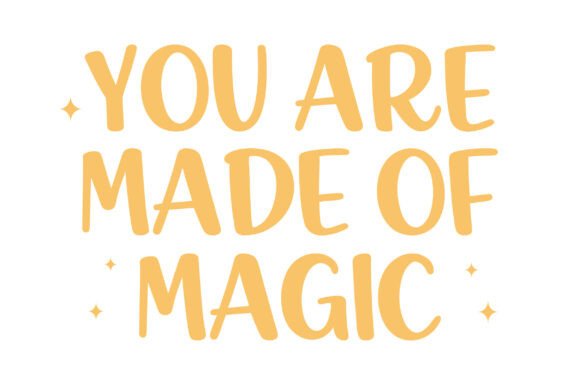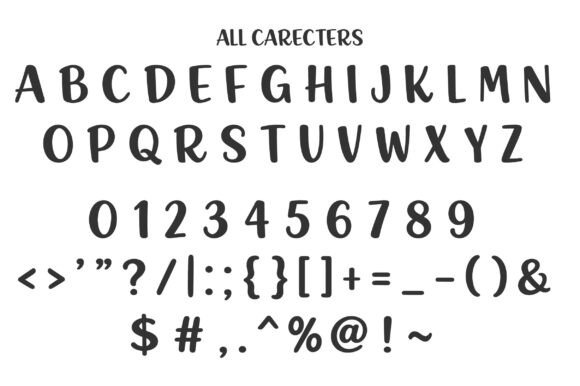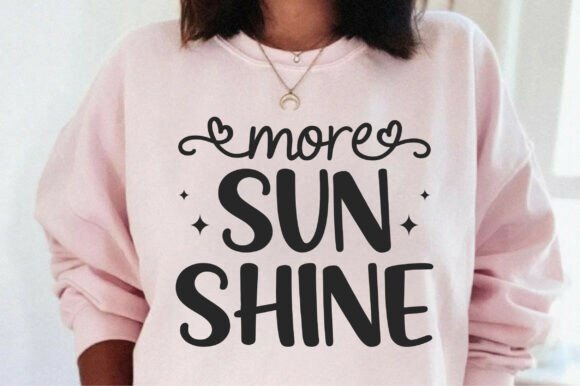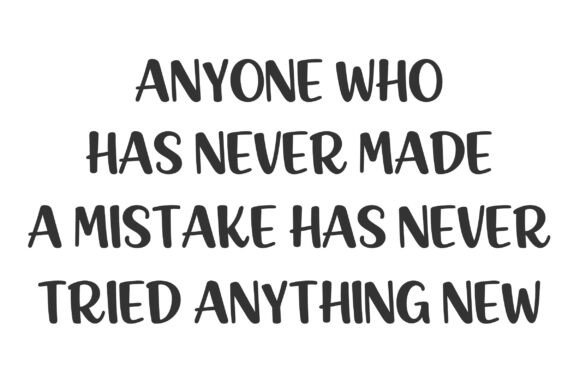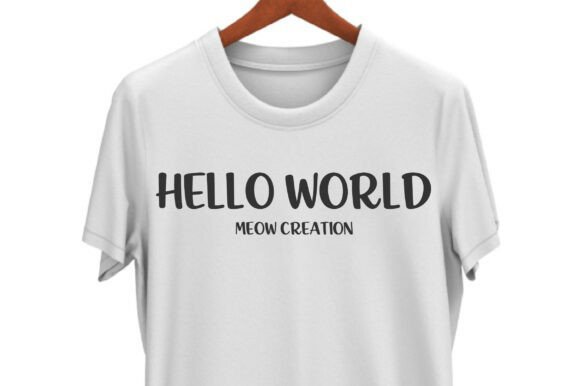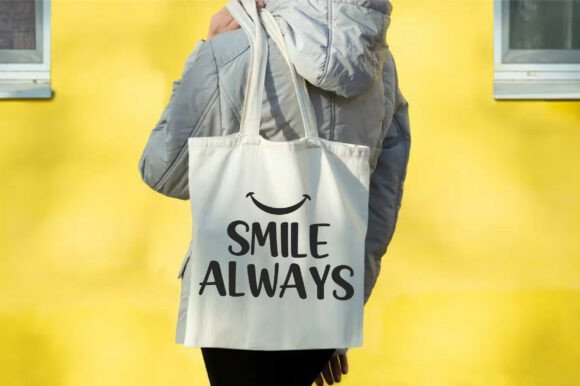
Introduction to Rounded Charm Font
Have you ever been in the middle of a creative project, flipping through design inspiration boards, and suddenly, you stumble upon the perfect font to bring your idea to life? For me, that moment happened when I discovered the Rounded Charm Font. Its soft curves and smooth hand-drawn feel immediately captured my attention, and I knew I had to learn more about this delightful design resource.
As a designer, I know how valuable it is to have high-quality fonts that can elevate our work and make it stand out. The Rounded Charm Font is one such treasure that can add a cute and modern touch to any design. With its bold yet playful style, it’s perfect for eye-catching designs that need warmth and personality. Whether you’re working on a t-shirt design, creating social media graphics, or crafting custom stickers, this font is an absolute must-have.
Key Features of Rounded Charm Font
- Rounded Charm Font is a unique, high-quality design resource ideal for creative projects requiring a touch of elegance and sophistication.
- This font features a transparent background, allowing for seamless integration with any design or image.
- Rounded Charm Font comes in a range of sizes, from 12pt to 72pt, making it suitable for various design applications.
- The font’s unique, rounded design elements add a creative and whimsical touch to any project, from branding and marketing materials to digital art and graphics.
- Rounded Charm Font is a versatile design resource that can be used in a variety of creative projects, from print to digital media.
Honest Review: Rounded Charm Font
I recently stumbled upon the Rounded Charm Font while searching for a free design resource to spice up my creative project. I must say, I was impressed by its high quality and versatility.
Here’s what I like about Rounded Charm Font:
- ✨ It’s incredibly easy to read and use, making it perfect for headings and titles.
- ✨ The rounded edges give it a friendly, approachable feel that’s perfect for brand identities and UI design.
- ⚠️ The font doesn’t support a transparent background, which can be a problem if you’re working with a complex design.
- ⚠️ The font family is relatively small, so it may not be suitable for larger-scale projects or commercial use.
Overall, I’m impressed with Rounded Charm Font. While it has its limitations, it’s a high-quality design resource that’s perfect for smaller creative projects. I’d definitely recommend it to fellow designers looking for a free, easy-to-use font.
Rounded Charm Font
The Rounded Charm Font is a high-quality design resource perfect for creative projects. With its elegant and modern style, it’s ideal for various applications, including digital and print media.
The Rounded Charm Font is ideal for various creative projects, including:
1. Branding and logos.
2. Infographics and data visualizations.
3. Marketing materials and brochures.
1. Experiment with different font sizes and styles to create a visually appealing design.
2. Use the font in combination with other design elements, such as images and graphics, to create a cohesive look.